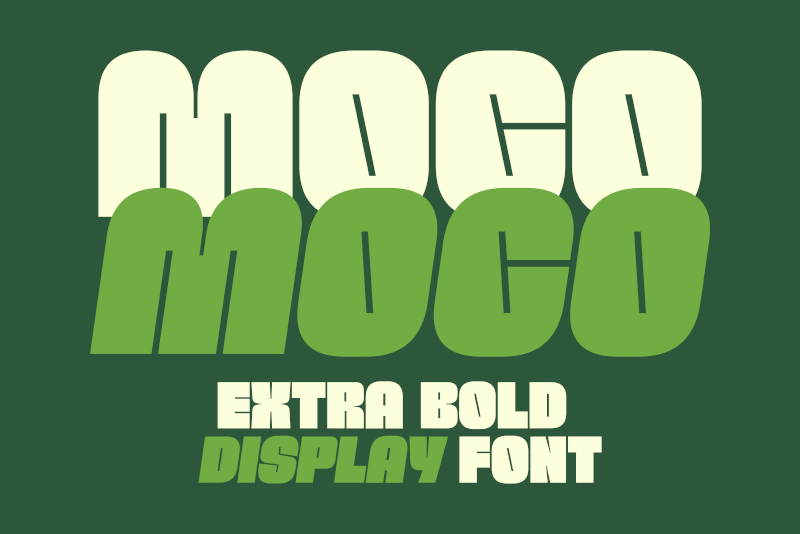
Moco
Introducing Moco, an extra bold display font designed to make your words stand out with strength and personality. Available in two styles — Regular and Italic, Moco brings a modern-retro charm that blends smooth rounded edges with solid geometric shapes. Perfect for logos, posters, headlines, packaging, and branding, Moco delivers a confident, stylish tone that captures attention instantly. Whether you’re creating a fun visual identity or a striking title design, Moco gives your project boldness, balance, and character. _____________________________________________________ NOTE: This demo font is for PERSONAL USE ONLY! Be very careful and take the time to read any and all documentation before deciding to use a font commercially. Ignorance is not an excuse for breaking the law. By installing or using this font, you are hereby agree to this Product Usage Agreement: 1. This font is ONLY FOR PERSONAL USE 2. NO COMMERCIAL USE ALLOWED 3. You are REQUIRES A LICENSE for PROMOTIONAL or COMMERCIAL USE 4. CONTACT ME before any Promotional or Commercial Use 5. Using this font for commercial purposes/interests, whatever the form WITHOUT PERMISSION or WITHOUT PURCHASING A font LICENSE first from me, as the Creator and/or the Font Copyright Holder, a LICENSE RENEWAL fee will be charged or 100 times the price of the Standard License price, or in accordance with the provisions has been regulated in the Law of the Republic of Indonesia Number 28 of 2014 concerning Copyright If you want to purchase this font : If you need an extended license or corporate license, please visit us at : https://graphicted.com/